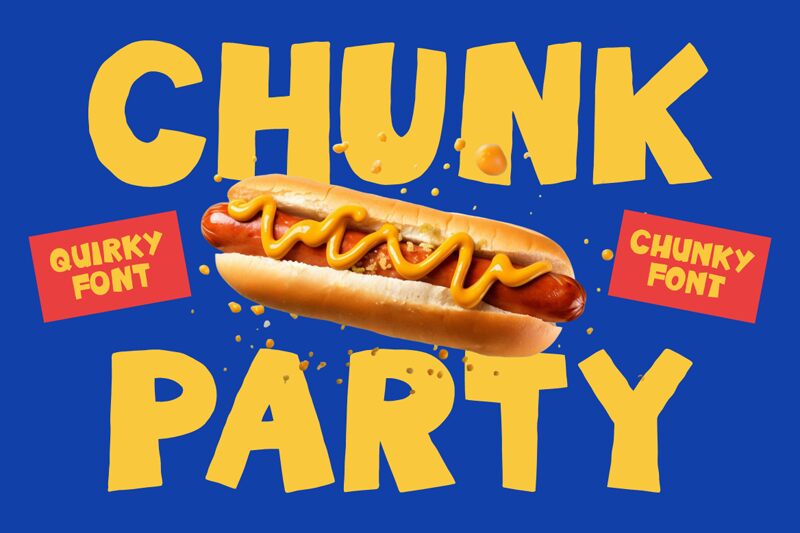
Chunk Party font family by PutraCetol Studio is here to have fun! Thanks to its distinctive cartoon style, this free font family draws power with its dynamic aesthetic. It is informal and lively – perfect to help you convey the related tone in your visual communication. Chunk Party is a potent attention-grabber, which makes it perfect for brand building.
Brands centered around fun and energy within the children’s entertainment industry will find an undisputable ally in the typeface. Other use cases include movie posters, magazines, dynamic packaging, social media visuals, comics, games, and other youth-oriented materials.